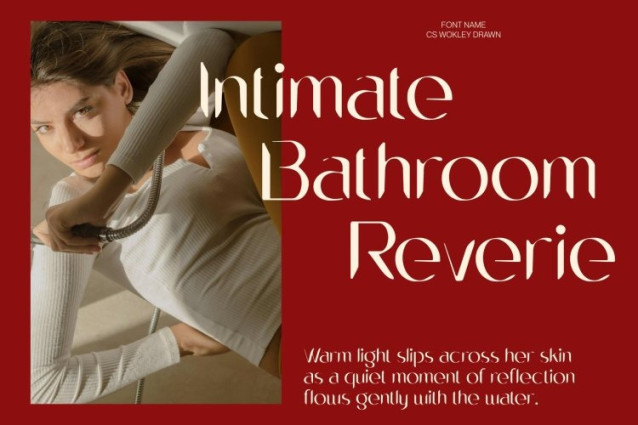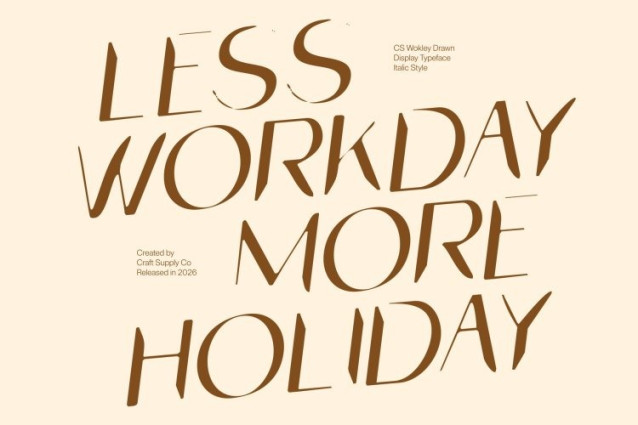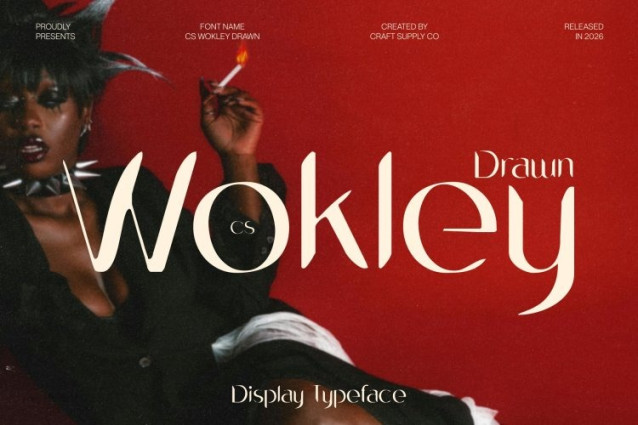
CS Wokley Drawn Font
CS Wokley Drawn Font This is a modern sans serif font defined by striking high contrast and a confident contemporary structure. The interplay between thick and thin strokes creates a bold visual rhythm that feels fresh, refined, and instantly eye-catching. Enhanced with a subtle drawn texture, the font gains a handcrafted edge that softens its precision while preserving a clean, modern presence.
Sharp Angles with Confident Character
The letterforms feature sharp angles and crisp details that communicate strength, clarity, and authority. These angular shapes give the font a bold yet elegant personality, allowing it to feel assertive without becoming rigid. The drawn finish adds warmth and expression, creating a balance between sharp modernity and artistic character.
Luxurious Feel with Modern Precision
By combining high contrast, sharp geometry, and a hand-drawn touch, this font delivers a luxurious aesthetic with contemporary precision. It feels polished and fashion-forward while remaining expressive and distinctive. The result is a typeface that brings visual drama and sophistication without excessive ornamentation.
Perfect for Branding and Creative Design
Ideal for branding, magazines, logos, social media graphics, and creative projects, this font performs beautifully in headlines and display use. Whether applied to editorial layouts, digital branding, or promotional visuals, it delivers a confident, modern, and luxurious typographic presence with expressive drawn character.